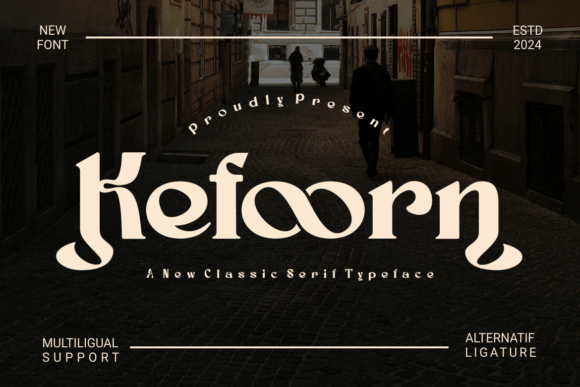
Introducing Kefoorn Font: The Modern Classic Serif Typeface
In the world of typography, fonts play a crucial role in defining the visual identity of a brand, product, or editorial content. With the numerous font options available, designers often seek unique and stylish typefaces that can elevate their projects. Kefoorn Font is one such modern classic serif typeface that has gained significant attention for its bold, elegant, and timeless design. In this article, we’ll explore the features, benefits, and applications of Kefoorn Font, and how it can enhance your branding, editorial layouts, and high-end packaging.
What is Kefoorn Font?
Kefoorn Font is a bold and stylish serif typeface designed with a modern classic twist. Its sharp yet elegant characters make it an ideal choice for designers seeking a sophisticated and refined font for their projects. Kefoorn’s unique design combines traditional serif elements with a contemporary flair, making it perfect for a wide range of applications.
Key Features of Kefoorn Font
- Sharp yet Elegant Characters: Kefoorn’s characters are designed with precision, featuring sharp lines and elegant curves that exude sophistication.
- Unique Ligatures: The font includes unique ligatures that add a touch of personality to your designs, making them stand out from the crowd.
- Multilingual Support: Kefoorn Font is designed with multilingual support, making it an excellent choice for global brands and projects.
- Timeless Flair: Kefoorn’s classic design ensures that your projects will remain timeless, avoiding the pitfalls of trendy fonts that may quickly become outdated.
Applications of Kefoorn Font
Kefoorn Font’s versatility makes it suitable for a wide range of applications, including:
- Branding: Use Kefoorn Font to create a bold and memorable brand identity that reflects your values and personality.
- Editorial Layouts: Kefoorn’s elegant design makes it perfect for editorial layouts, such as magazines, newspapers, and books.
- High-End Packaging: The font’s sophisticated design is ideal for high-end packaging, adding a touch of luxury to your products.
Benefits of Using Kefoorn Font
By incorporating Kefoorn Font into your design projects, you can benefit from:
- Enhanced Visual Identity: Kefoorn Font helps create a strong and recognizable visual identity for your brand or project.
- Improved Readability: The font’s clear and elegant design ensures excellent readability, making it easy for your audience to engage with your content.
- Unique Design: Kefoorn’s unique ligatures and stylish characters help your designs stand out from the competition.
- Flexibility: The font’s versatility makes it suitable for various applications, from digital media to print materials.
Tips for Using Kefoorn Font Effectively
To get the most out of Kefoorn Font, consider the following tips:
- Pair with Complementary Fonts: Combine Kefoorn Font with complementary fonts to create a harmonious and visually appealing design.
- Experiment with Ligatures: Take advantage of Kefoorn’s unique ligatures to add personality and flair to your designs.
- Adjust Font Sizes: Experiment with different font sizes to create visual hierarchy and emphasize important elements.
- Consider Multilingual Support: If you’re working on a global project, ensure that Kefoorn Font’s multilingual support meets your language requirements.
Kefoorn Font is a powerful and stylish serif typeface that can elevate your branding, editorial layouts, and high-end packaging. Its sharp yet elegant characters, unique ligatures, and multilingual support make it an excellent choice for designers seeking a modern classic font. By incorporating Kefoorn Font into your design projects, you can create a strong visual identity, improve readability, and add a touch of sophistication. With its timeless design and versatility, Kefoorn Font is an excellent addition to any designer’s font library.